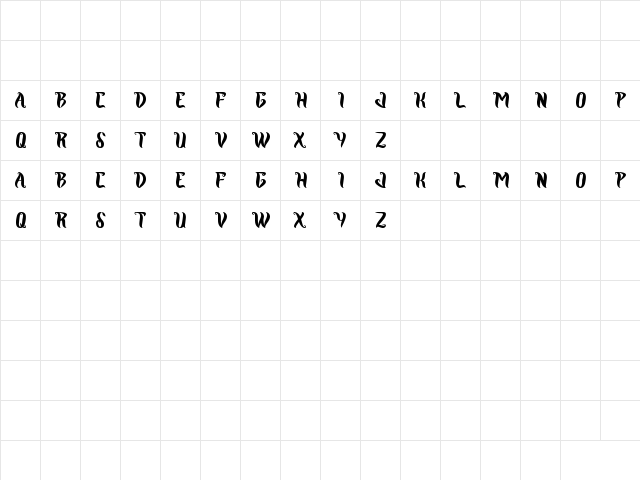
ROYAL JELLY Regular
Design Context for ROYAL JELLY Typeface
ROYAL JELLY is a composed and adaptable typeface that performs quietly and consistently across a wide range of design contexts.
Pro Tip: Use ROYAL JELLY in both headline and body roles to test its range before committing to a single application.